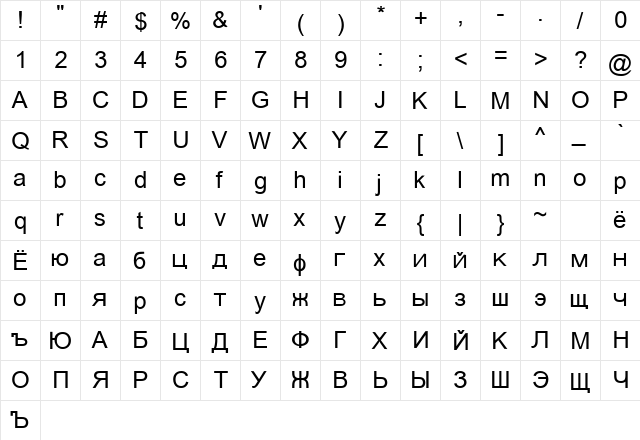
K8 Arial Regular
Design Context for K8 Arial Typeface
K8 Arial takes a measured approach to typography — its balanced proportions and neutral character make it a reliable workhorse for both digital and print work.